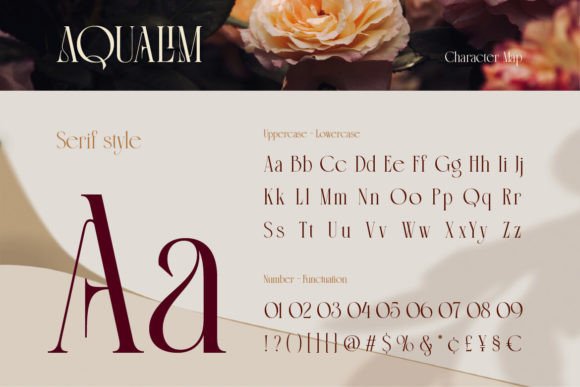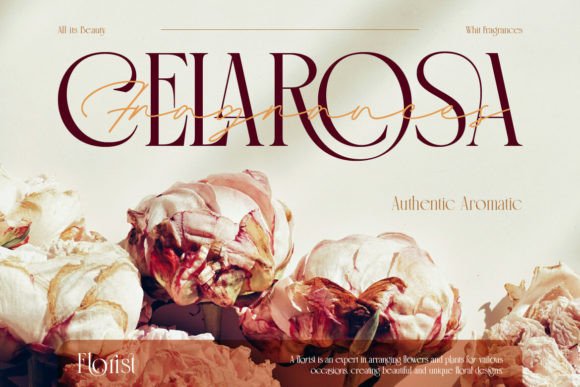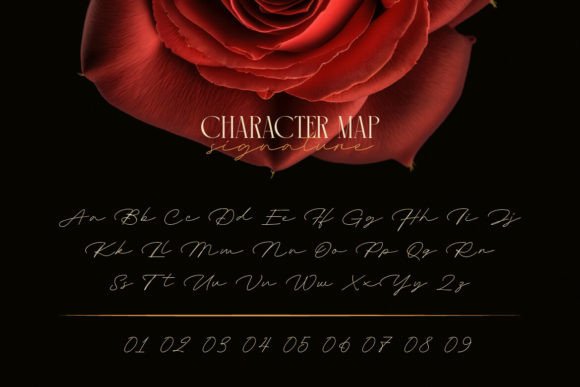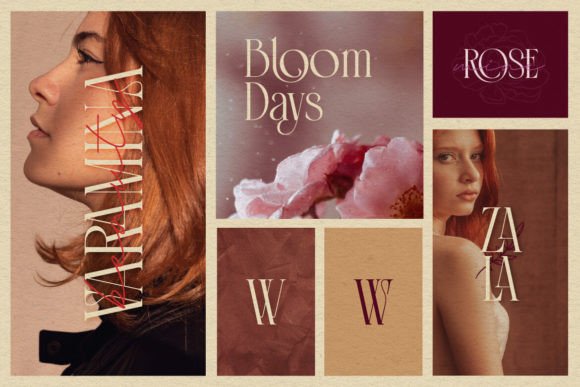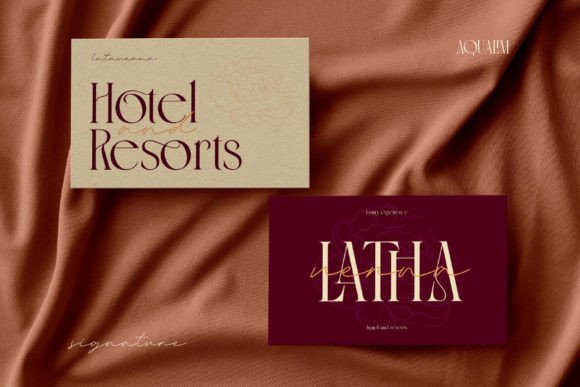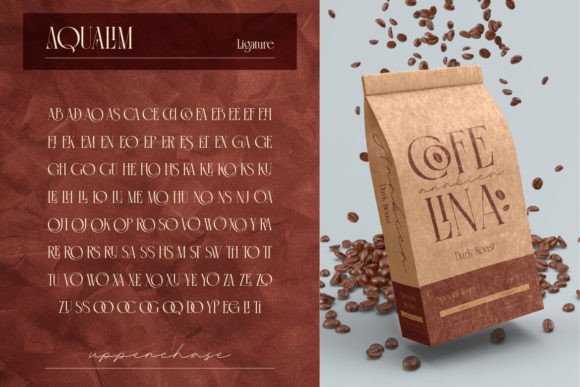
Unleash the Elegance: Introducing Aqualim Signature Font
Have you ever stared at a blank page, trying to come up with the perfect headline or title for your next design project, only to find yourself stuck in a sea of boring fonts? That’s exactly where the magic of typography comes in – to transport your audience to a world of sophistication and luxury. And that’s exactly what Aqualim Signature Font does, beautifully marrying classic serif with the fluidity of script.
Aqualim Signature Font is more than just a font – it’s a statement piece that adds a touch of elegance to any design. Whether you’re crafting a luxurious logo, designing a wedding invitation, or creating a captivating poster, this font is the perfect tool to elevate your work. For designers, it’s a valuable addition to their toolkit, offering endless possibilities for creating stunning visuals that leave a lasting impression.
Aqualim Signature Font Key Features
- Font Family: Aqualim Signature Font is a unique, hand-drawn font that offers a modern and elegant look.
- Unique Characteristics: The font features a distinctive wave-like design, giving it a dynamic and eye-catching appearance. Each letter is carefully crafted to provide a smooth and flowing connection between characters.
Aqualim Signature Font Review
As a designer, I was excited to dive into the Aqualim Signature Font and see what it had to offer. ✨ First off, the font’s elegant and sophisticated design caught my eye. The subtle wave-like curves and fluid lines make it perfect for creating high-end brand identities and luxury materials. The font’s versatility shines through in its ability to work seamlessly with various font sizes, styles, and pairings.
Here are some of the key features that stood out to me:
- ✨ Elegant and sophisticated design
- ✨ Versatile and easy to pair with other fonts
- ✨ Suitable for luxury and high-end brand identities
- ⚠️ Limited character set (no Cyrillic or Greek alphabet support)
- ⚠️ May not be suitable for body text or long-form content due to its decorative nature
- ⚠️ Can be difficult to read at small font sizes
Overall, I would give the Aqualim Signature Font 4 out of 5 stars. While it’s not perfect, its unique design and versatility make it a great choice for specific projects. With some careful consideration of its limitations, this font can help take your designs to the next level.
Use the Aqualim Signature Font in conjunction with other elegant fonts to create a cohesive design. Experiment with different font sizes and styles to add visual interest. Avoid overusing the font to maintain visual balance.
Use the Aqualim Signature Font for:
- Photography and art portfolios